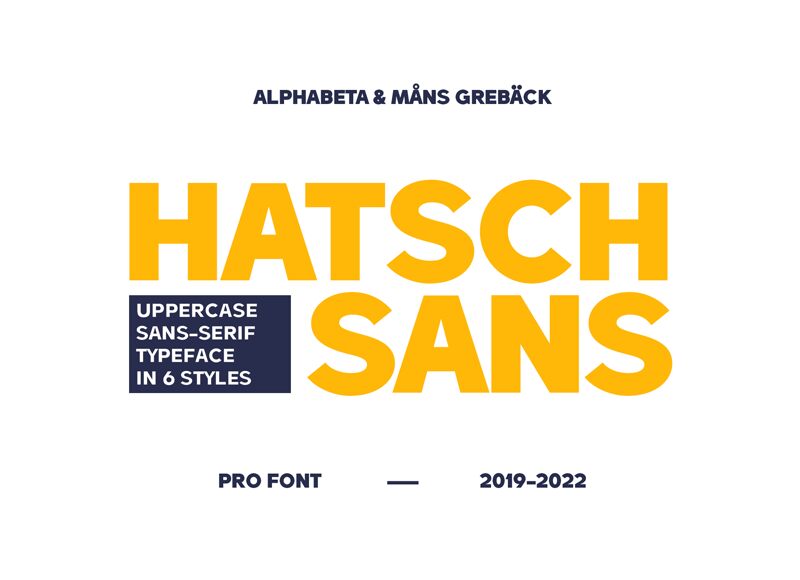
Introducing Hatsch Sans, the ultimate font for modern design projects. Created by renowned designer Mans Greback, this sans serif font style boasts an extra-bold weight with a semi-expanded width, making it perfect for creating eye-catching headlines or bold statements. Its clean and minimalistic feel lends itself well to a variety of design projects, from sleek logos and branding materials to striking advertisements and web graphics. Whether you're looking to create something edgy or sophisticated, Hatsch Sans is the font that will elevate your design game. So go ahead and give it a try - your next project is sure to stand out!